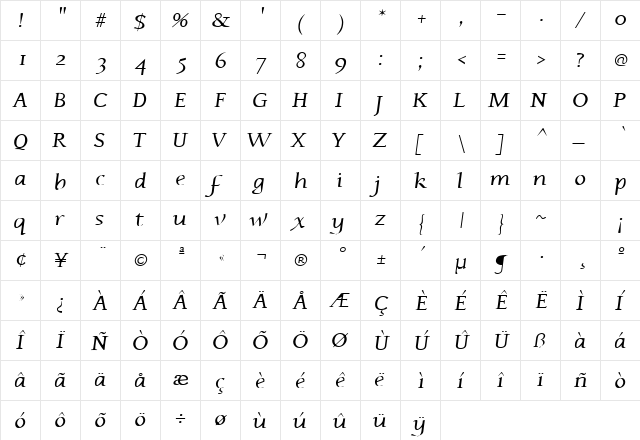
Mama Kin 1 Italic
Design Context for Mama Kin 1 Typeface
Mama Kin 1 offers clean, dependable letterforms without strong stylistic allegiance, making it a practical choice for designers who need flexibility. The slanted form adds forward momentum and visual energy.
Pro Tip: Use Mama Kin 1 for emphasis, pull quotes, and subheadings where its slanted energy can add rhythm to the layout.